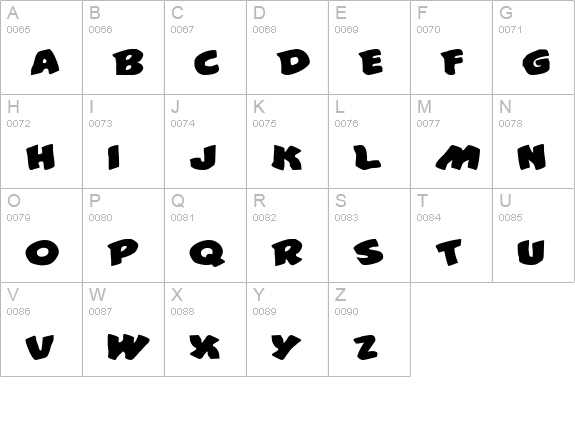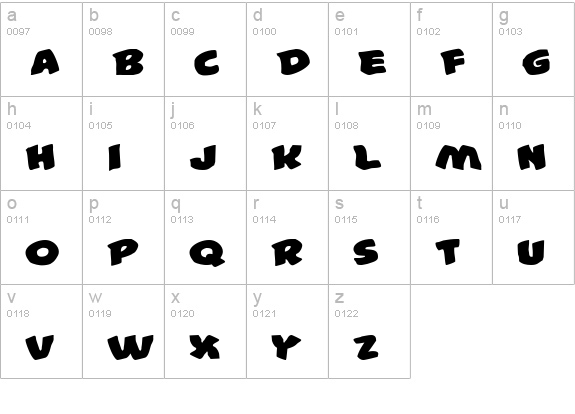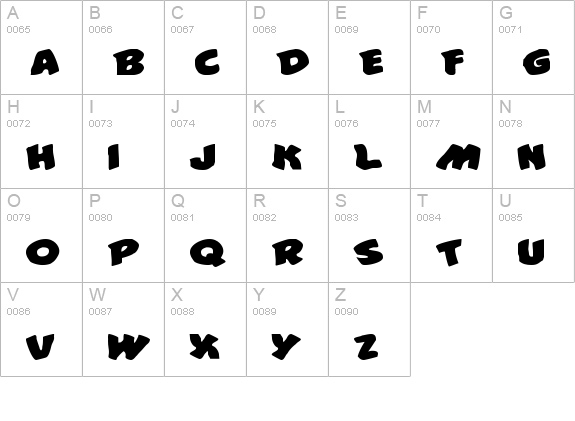
#44 Font Expanded Font Details
#44 Font Expanded is a distinctive, extended-width variant in the #44 typeface family \xE2\x80\x94 well suited to design and typography projects.
Introducing #44 Font Expanded, a versatile and stylish font perfect for a wide range of design projects. This unique font features an expanded style that adds a modern touch to any text or graphic element. With its clean lines and bold presence, #44 Font Expanded is sure to make a statement in any design. And the best part? This font is completely free to download at FontsMarket.com! Whether you're working on a poster, logo, website, or any other design project, #44 Font Expanded is a fantastic choice that will help your work stand out. Download it today and add a touch of sophistication to your designs with this eye-catching font.